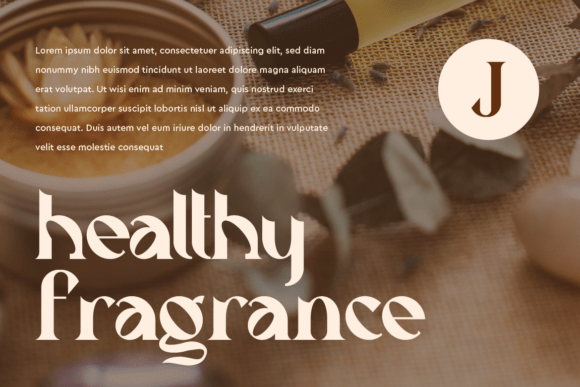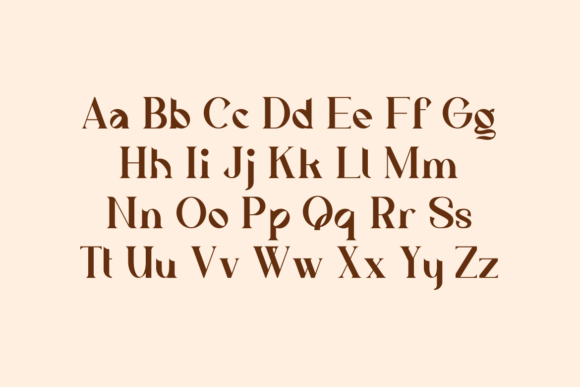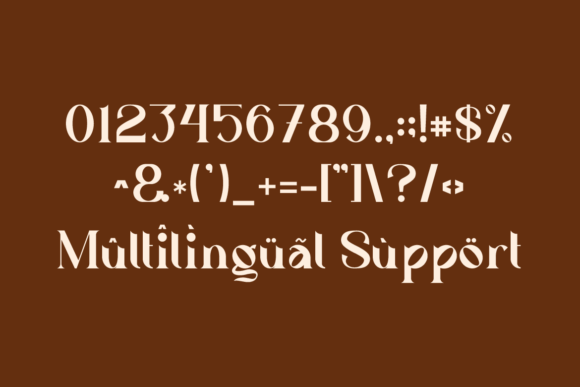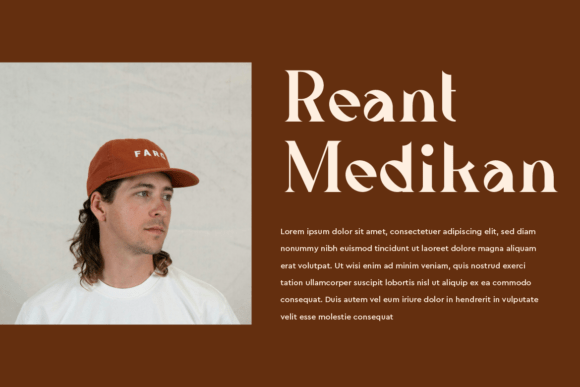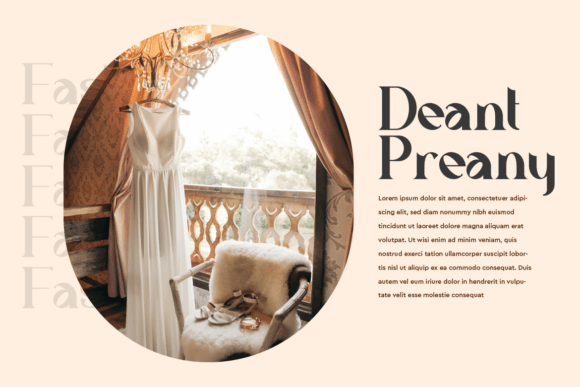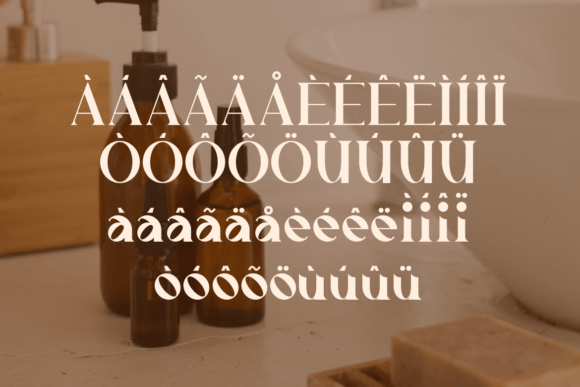
Introduction to Jeniute Font
Have you ever been working on a creative project, pouring your heart and soul into the design, only to find the perfect font eludes you? It’s like searching for the missing piece of a puzzle – frustrating and time-consuming. But what if I told you that there’s a font that can elevate your design to the next level, effortlessly? Enter the Jeniute Font, a clean and elegant serif font designed with precision and clarity.
For designers, having access to high-quality design resources like the Jeniute Font is invaluable. It can be the difference between a mediocre design and a truly exceptional one. With its sleek and modern appearance, the Jeniute Font is perfect for editorial design, branding, web interfaces, and product packaging. And the best part? It’s available for free download, making it an ideal addition to any design project.
Key Features of Jeniute Font
- Unique, elegant design for creative projects and designs
- Perfect for designs requiring a transparent background and a touch of sophistication
- High-quality, professional design suitable for a wide range of creative projects, from logos to typography
Honest Review: Jeniute Font
I recently had the chance to try out the Jeniute Font, and I must say it’s a great addition to any design resource library. With its high quality design and free download option, it’s a perfect choice for any creative project.
Here’s what works well:
- ✨ Beautifully crafted letters with a unique, elegant touch
- ✨ Supports both desktop and web use with a transparent background
- ✨ Works well for both print and digital designs
- ⚠️ Limited language support (only a few languages are available)
- ⚠️ Not suitable for very large or complex designs due to potential legibility issues
Overall, I’m impressed with the Jeniute Font. It’s a great design resource that can add a touch of elegance to any project. While it may have some limitations, I think it’s well worth checking out, especially considering the free download option.
Tips for Getting the Most Out of Jeniute Font
To get the most out of the Jeniute Font, use it in conjunction with other high-quality design elements. Experiment with different font sizes and styles to create a visually appealing design. Additionally, use the font’s transparent background to create a seamless look in your design.
Common Use Cases for Jeniute Font
The Jeniute Font is suitable for a variety of creative projects, including logos, business cards, and brochures. Its high-quality design and transparent background make it an ideal choice for designers looking to create a professional and visually appealing look.
Yes, the Jeniute Font has a transparent background, making it perfect for designs that require a seamless integration with other design elements. You can use it for logos, icons, and other design elements that require a transparent background.
Q: Is the Jeniute Font suitable for high-quality designs?
Yes, the Jeniute Font is designed to be a high-quality design resource. It features a clear and crisp font style, making it perfect for designs that require a professional and sophisticated look. The font is also highly legible, making it easy to read even at small font sizes.